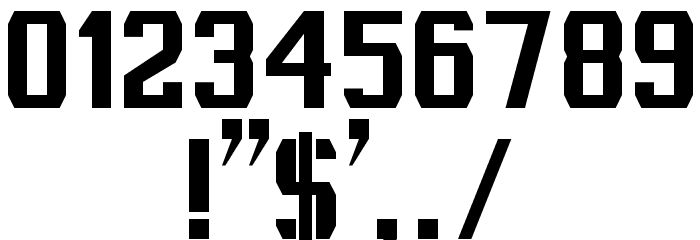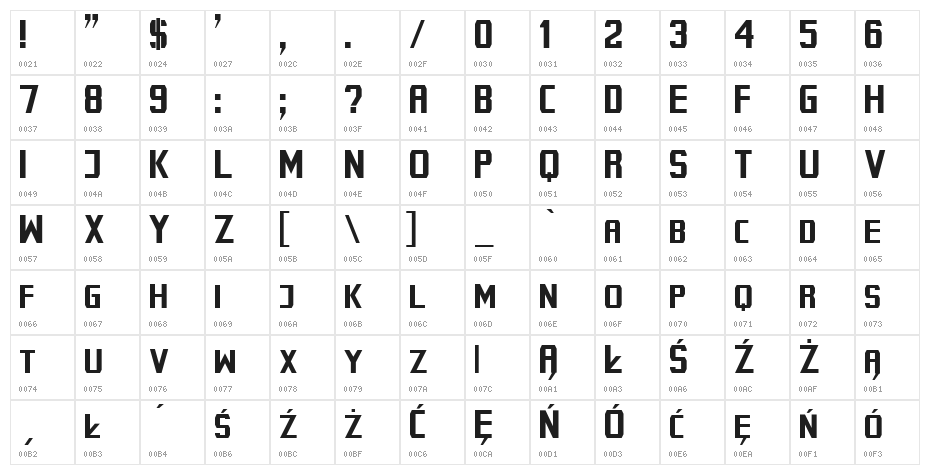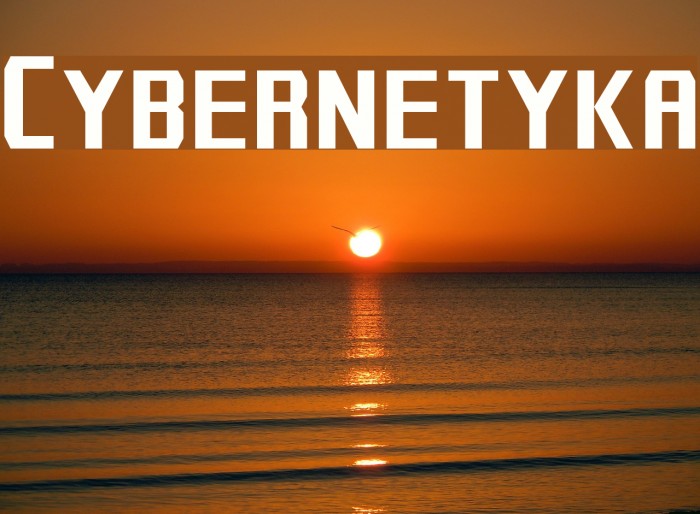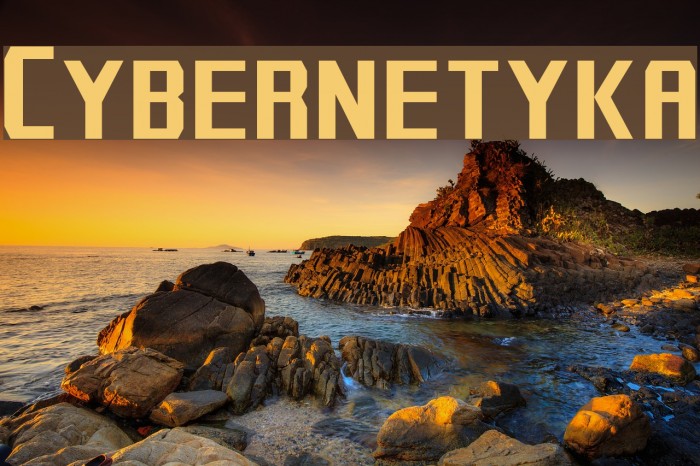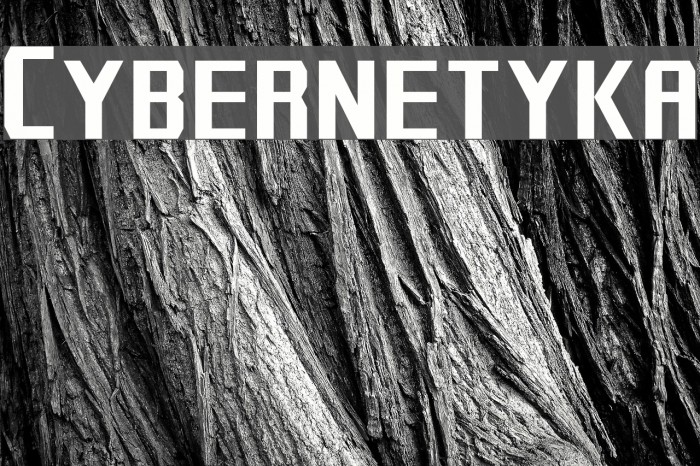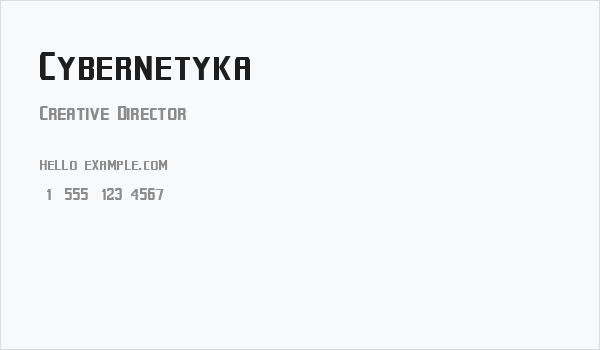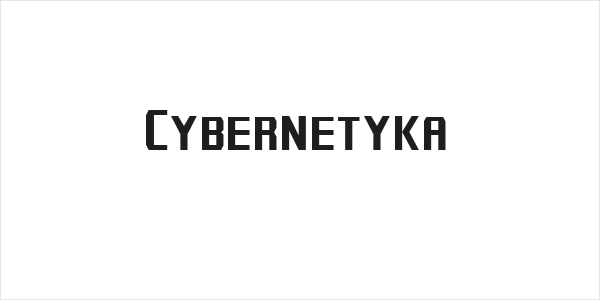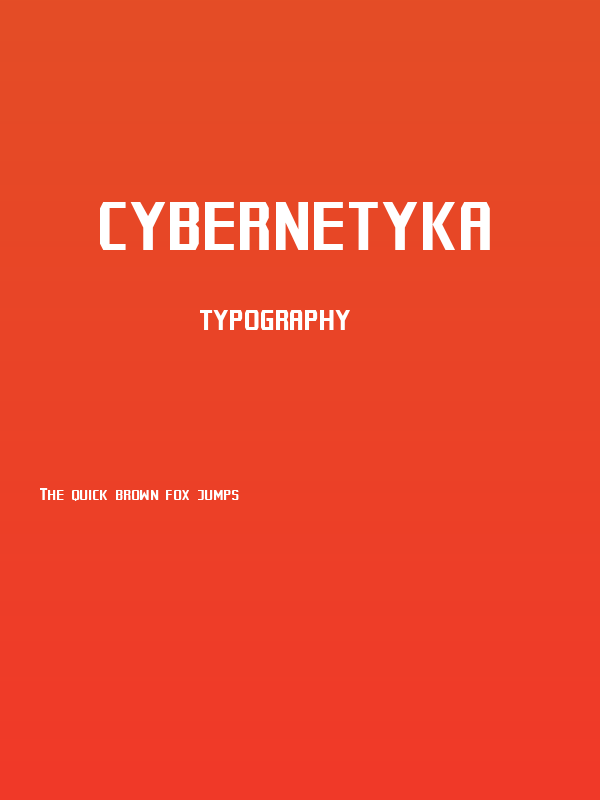
Cybernetyka Font
Cybernetyka Description
This font features a bold, geometric design with a futuristic and digital aesthetic. The characters are constructed with sharp angles and straight lines, giving it a mechanical and structured appearance. The uppercase letters are uniform in height, while the numerals and special characters maintain the same angular style, ensuring consistency across all glyphs. The font's design is reminiscent of digital displays or sci-fi themes, making it ideal for projects that require a modern and technological feel. The spacing between characters is tight, contributing to its compact and efficient look. This font is well-suited for headlines, posters, and any design that aims to capture a sense of innovation and modernity.
| Proposed Projects | Ideal for tech-themed posters, sci-fi book covers, video game titles, and digital interfaces. |